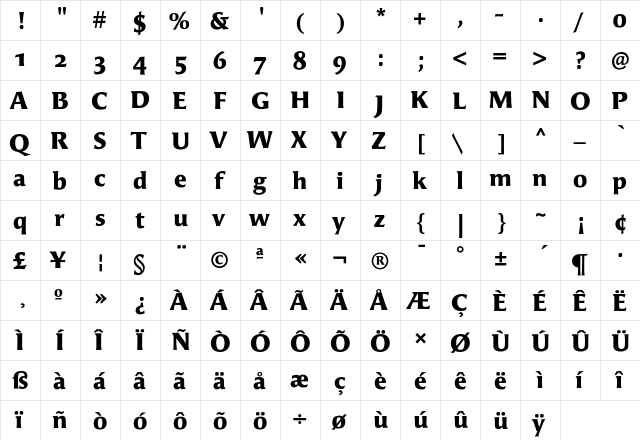
Angie BlackOSF
Design Context for Angie Typeface
Angie is a composed and adaptable typeface that performs quietly and consistently across a wide range of design contexts.
Pro Tip: Pair Angie with a font of contrasting weight or personality to build a more expressive typographic hierarchy.